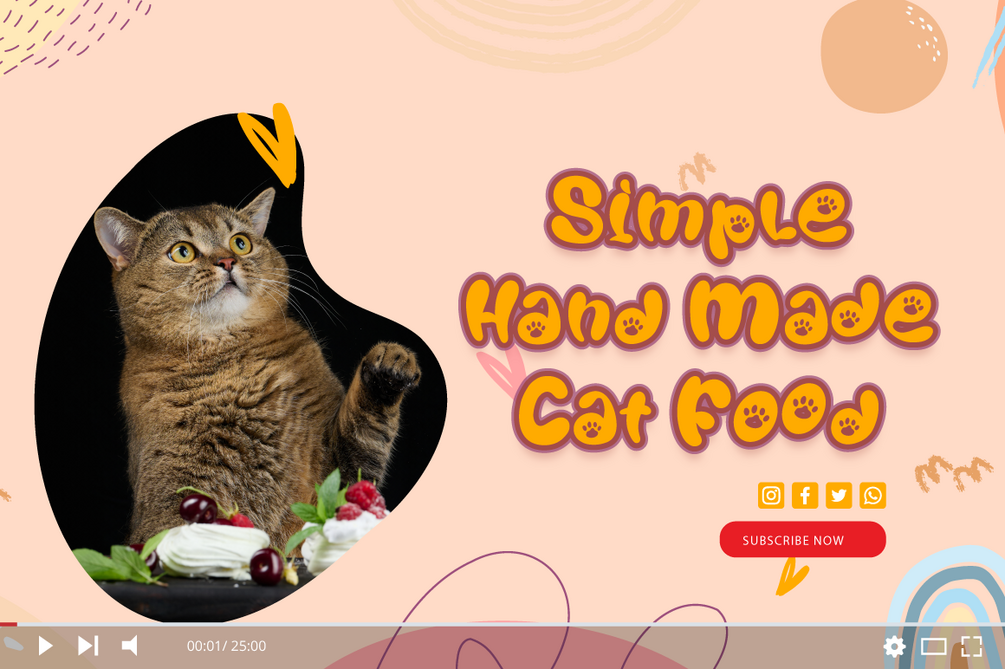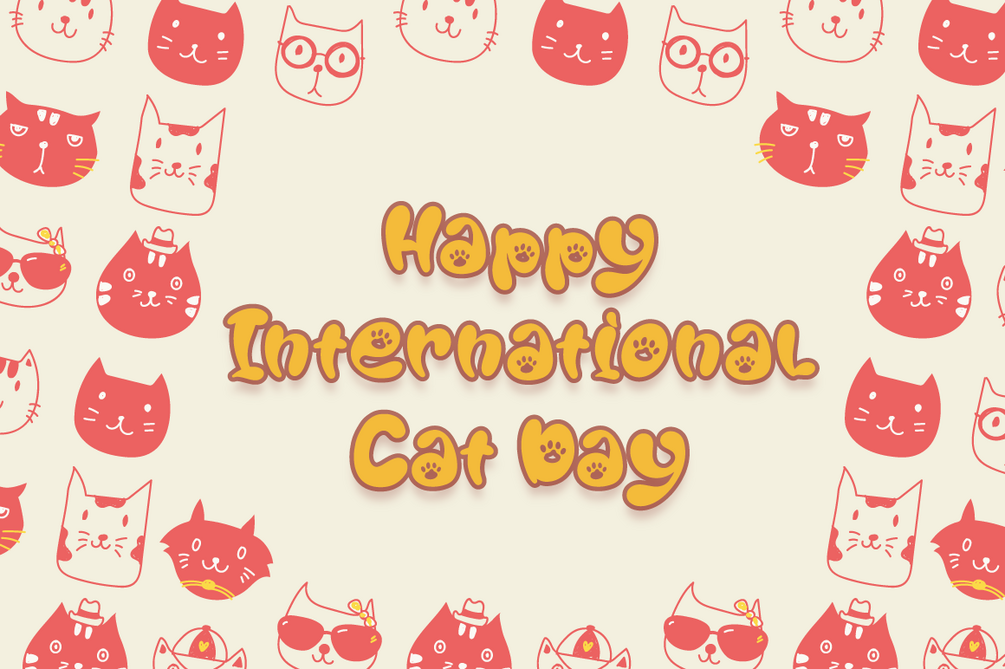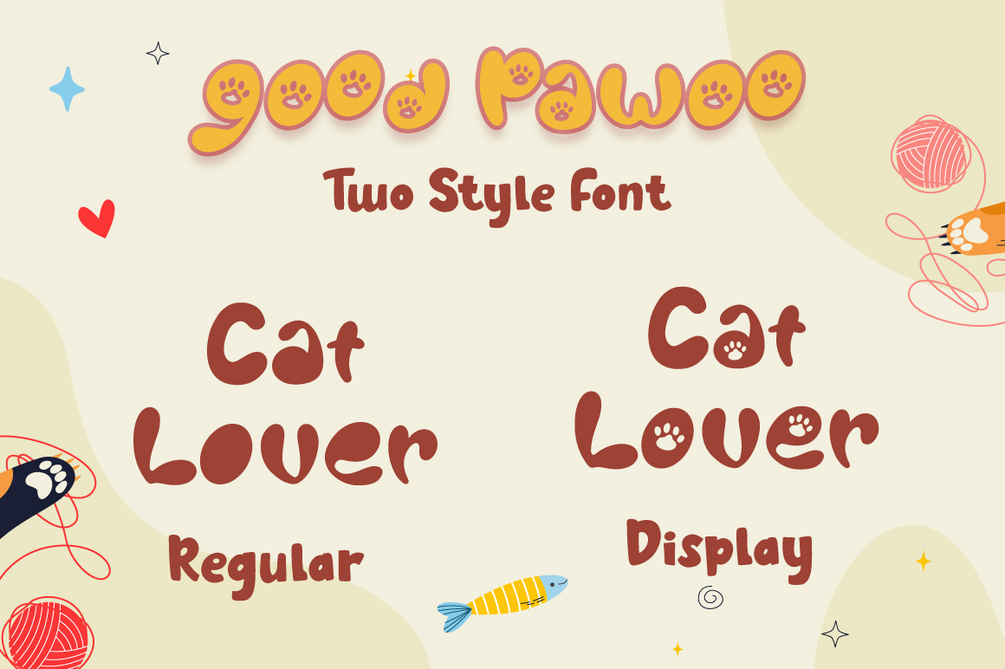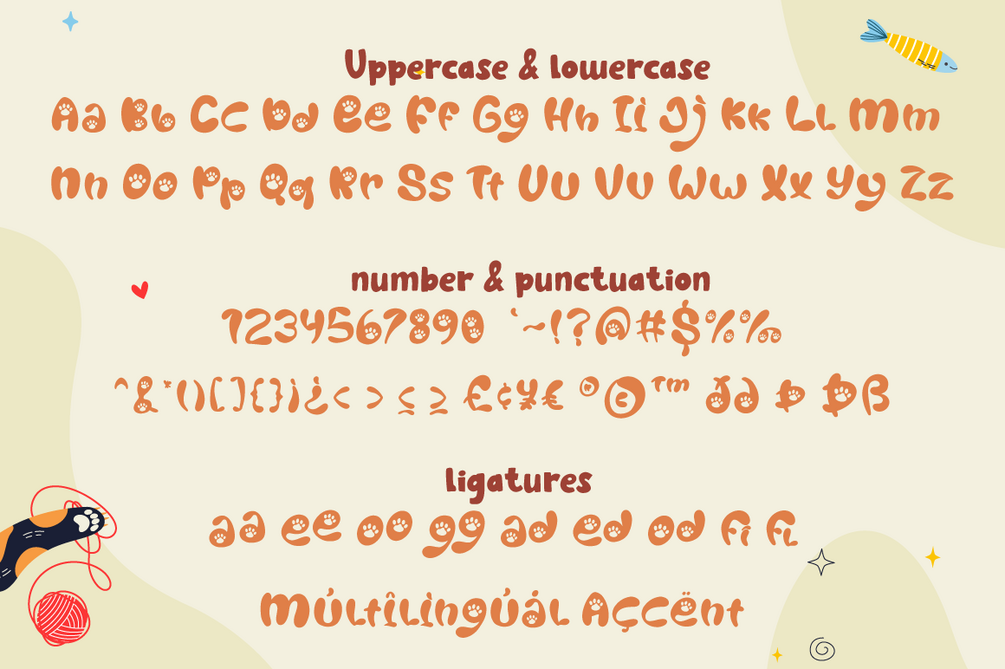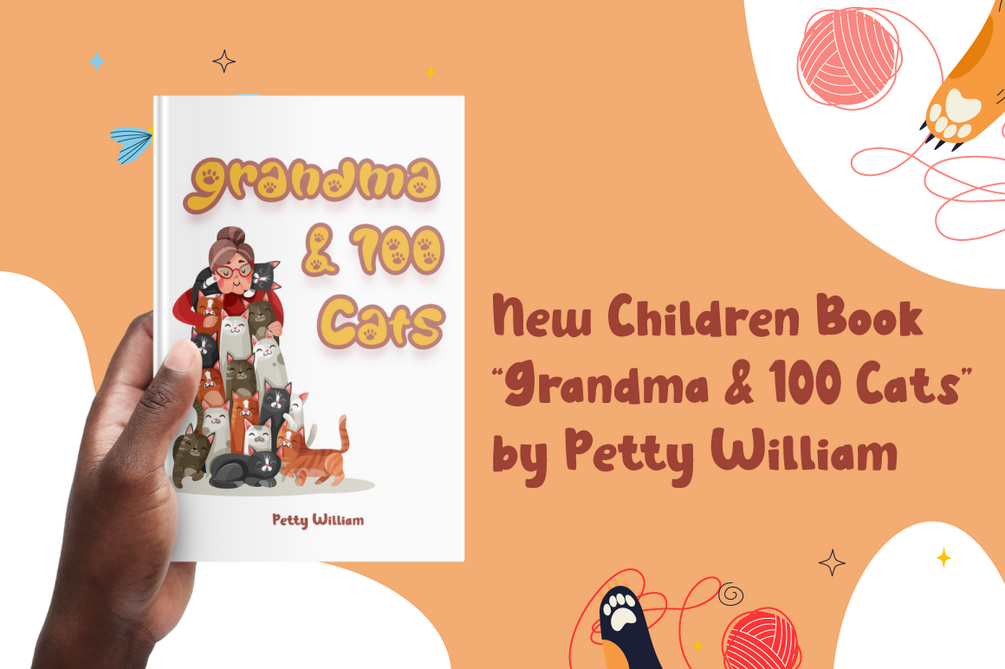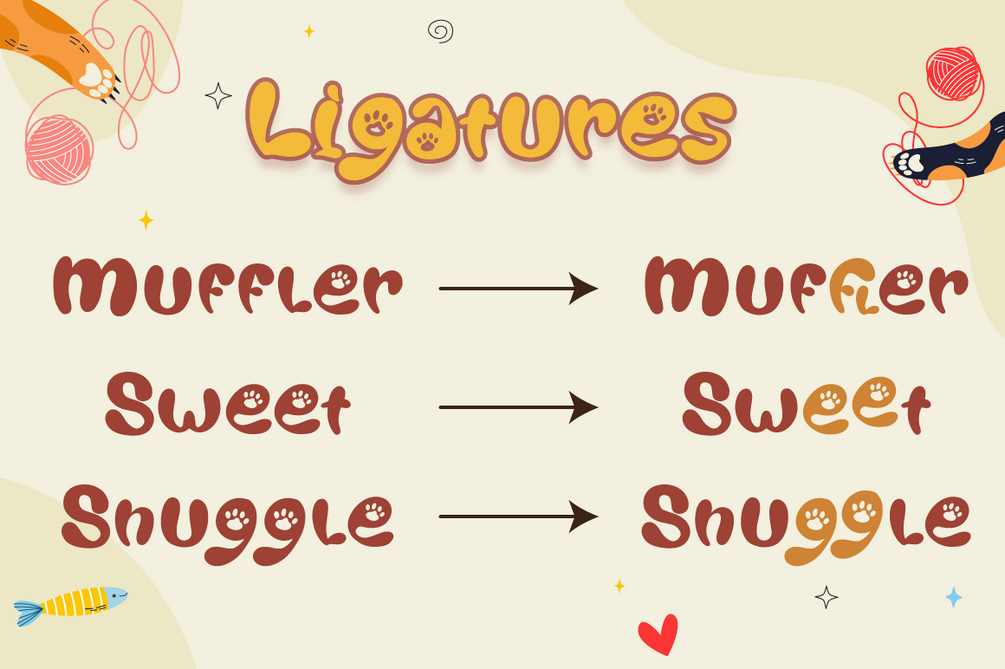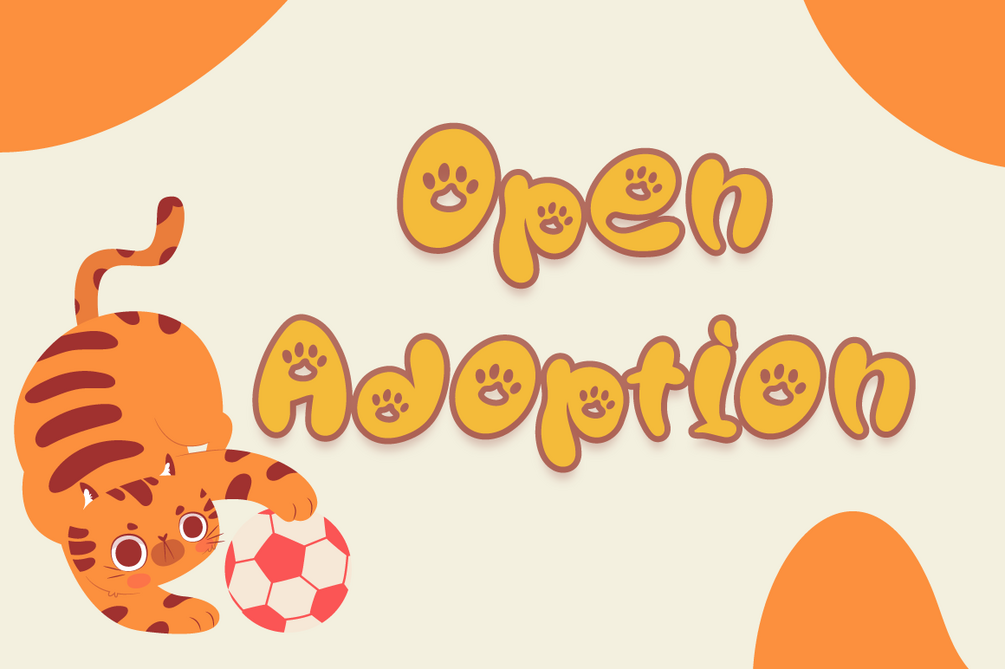
Good Pawoo - Display Font
Introducing Good Pawoo - Paw Display Font
Good Pawoo is unique Paw Display font, This font perfect for fun, quirky animal design.Combine ligatures Character to make perfect design for your projects.
Good Pawoo perfect for related animal design, vet promotion, branding, logo, invitation, stationery, social media post, product packaging, merchandise, blog design, game titles, cute style design, Book/Cover Title and more.
Features:
• Good Pawoo Regular
• Good Pawoo Display
• Uppercase
• Lowercase
• Numbers & Punctuation
• Ligatures
• Multilingual Support